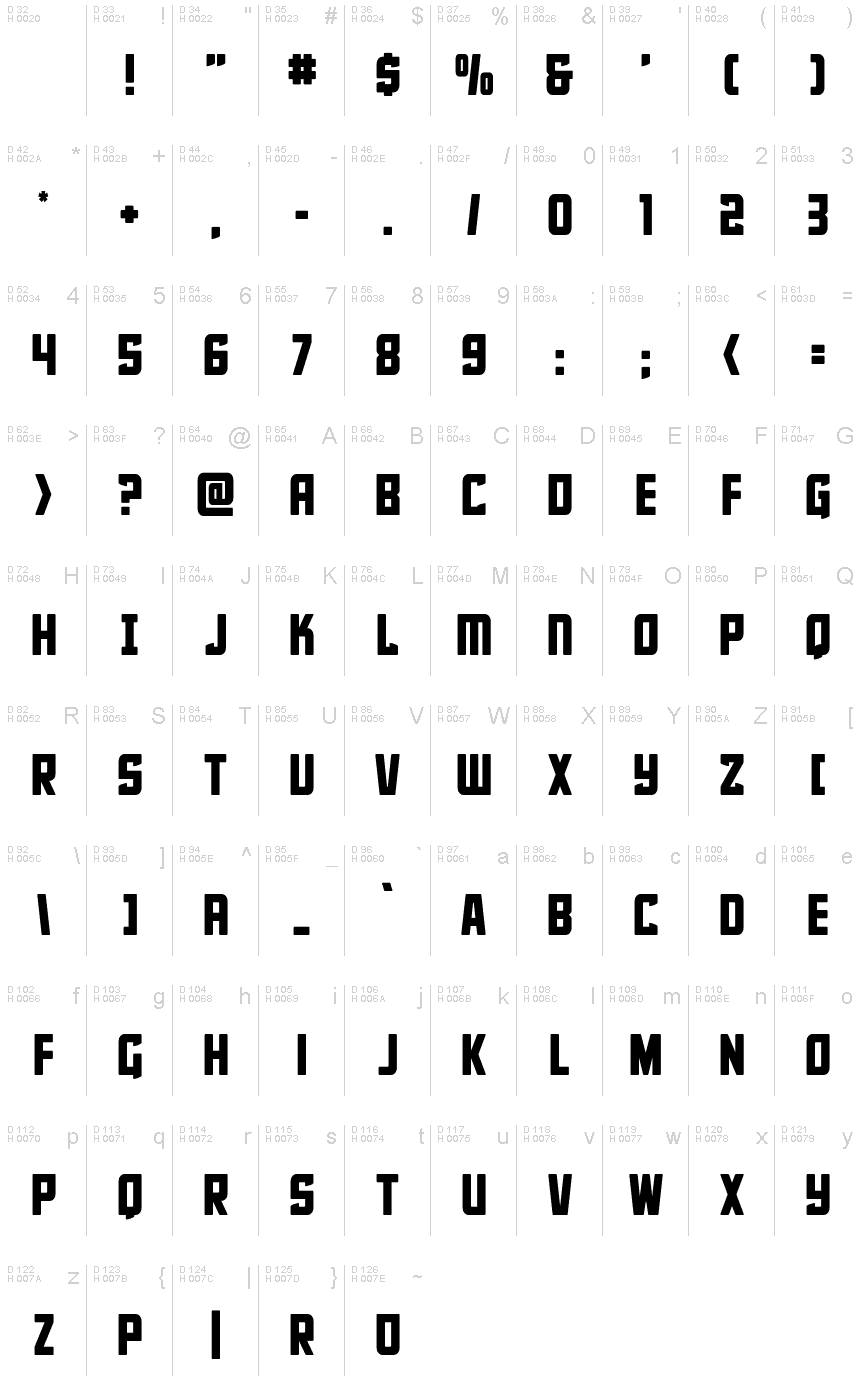
Phantom Storm
Phantom Storm is a bold and condensed display font that boasts a high-tech and futuristic aesthetic. Designed by Iconian Fonts, it's perfect for creating attention-grabbing headlines, posters, flyers, and product packaging. The techno style of Phantom Storm makes it an ideal choice for projects related to gaming, electronics, and science fiction. With its angled edges and sharp lines, this font will add a touch of dynamism to any design project. Whether you're creating website banners or album covers, Phantom Storm is the typeface that will give your work the edge it needs to stand out from the crowd!